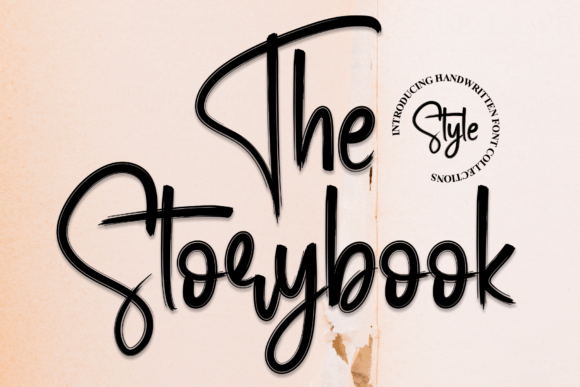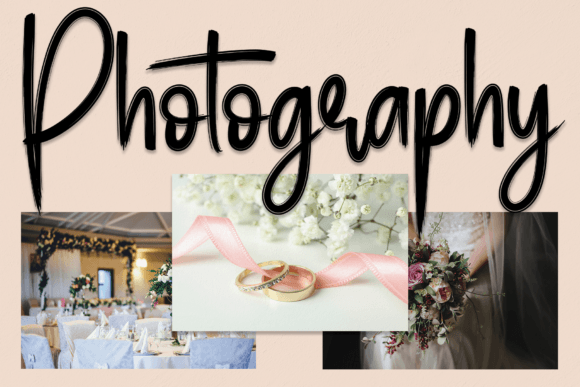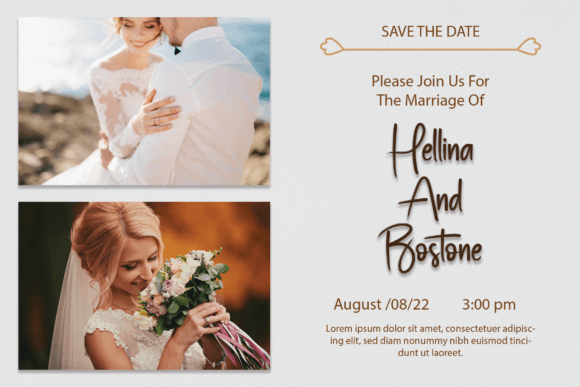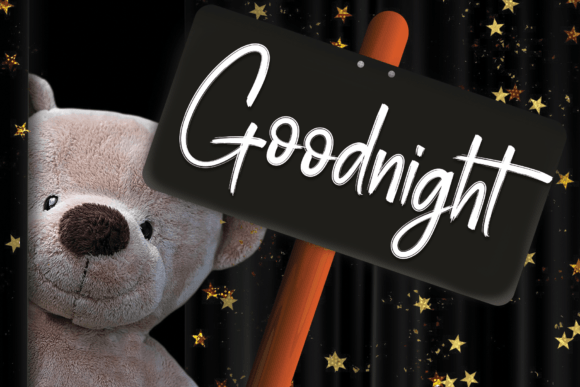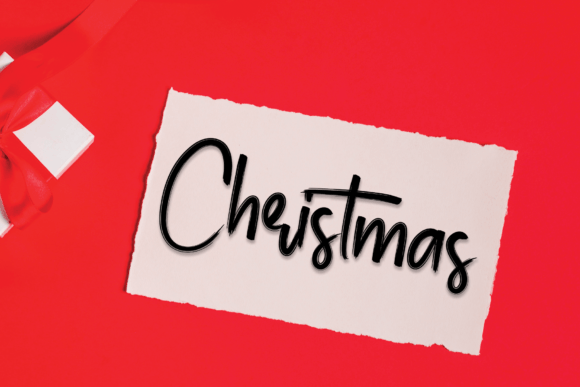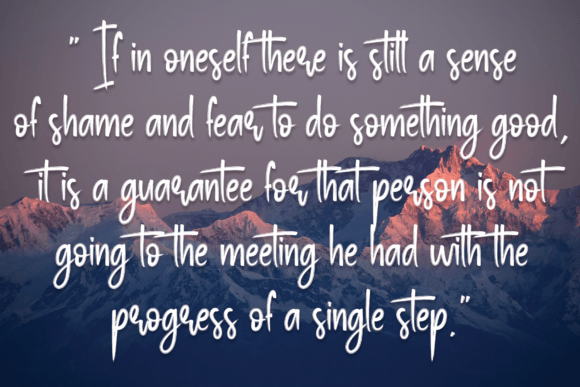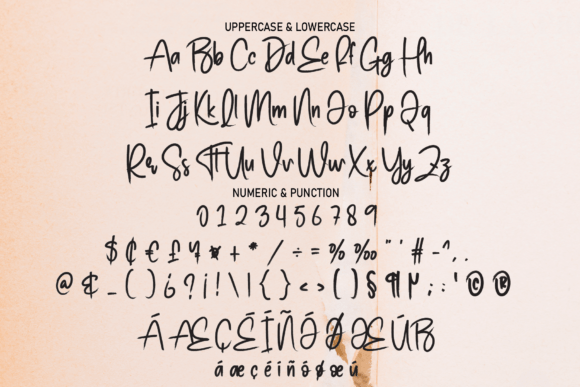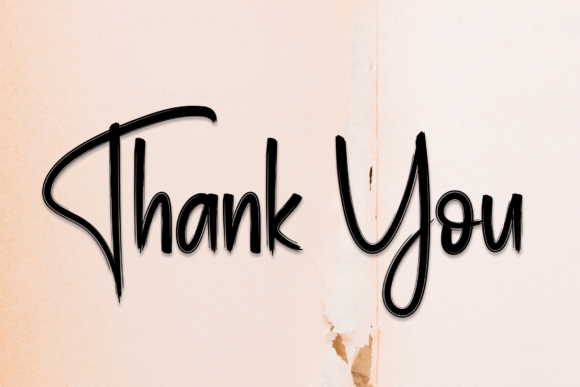
The Storybook Font
About The Storybook Font
The Storybook font is a stunning handwritten typeface that offers a timeless, elegant feel to your design projects. When you download The Storybook font, you gain access to a font that beautifully blends classic handwriting with modern design sensibilities. Its latest style letters are crafted with precision, making it ideal for a variety of creative uses.
Versatile for Many Design Needs
This font shines in wall displays and wedding invitations, providing a charming and personalized touch. The Storybook font is perfect for social media post logos and advertisements, helping your content stand out with a warm and inviting aesthetic. Download The Storybook font to elevate your product packaging, product designs, labels, and stationery, making each project feel special and handcrafted.
Ideal for Branding and Photography
The Storybook font’s delicate yet readable style is a great choice for branding projects and photography watermarks. It adds authenticity and elegance to logos and marketing materials. With its handwritten appeal, The Storybook font allows your brand to convey creativity and personality across various platforms and media.
By downloading The Storybookfont, you choose a versatile and elegant handwritten script. Its balanced and well-crafted characters make your designs look polished and professional while retaining a personal, human touch. The Storybookfont is a perfect addition for anyone wanting to enhance their projects with a timeless handwritten style.